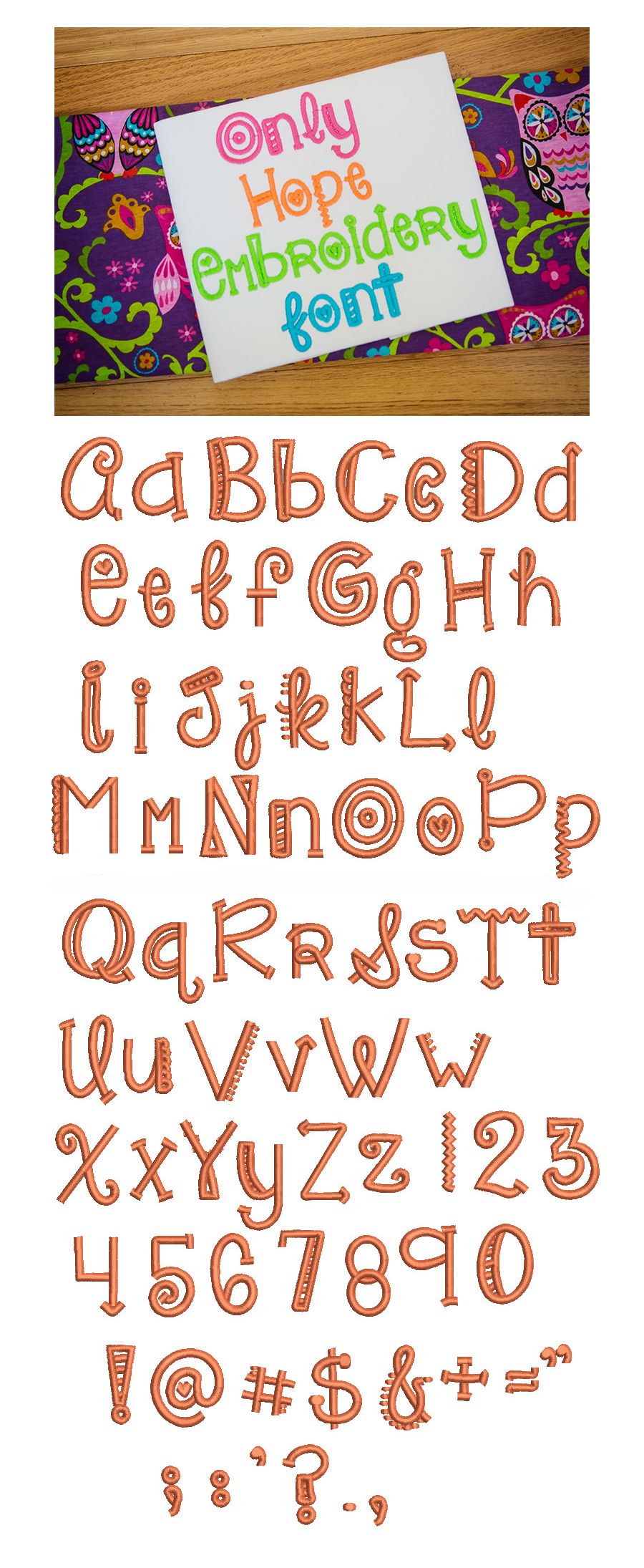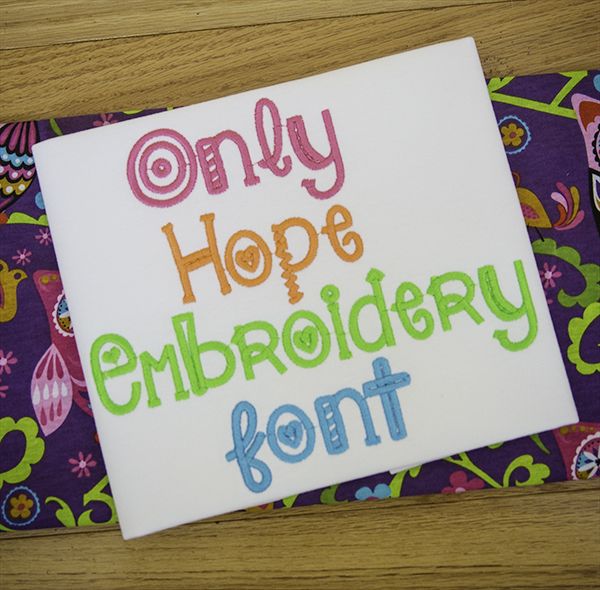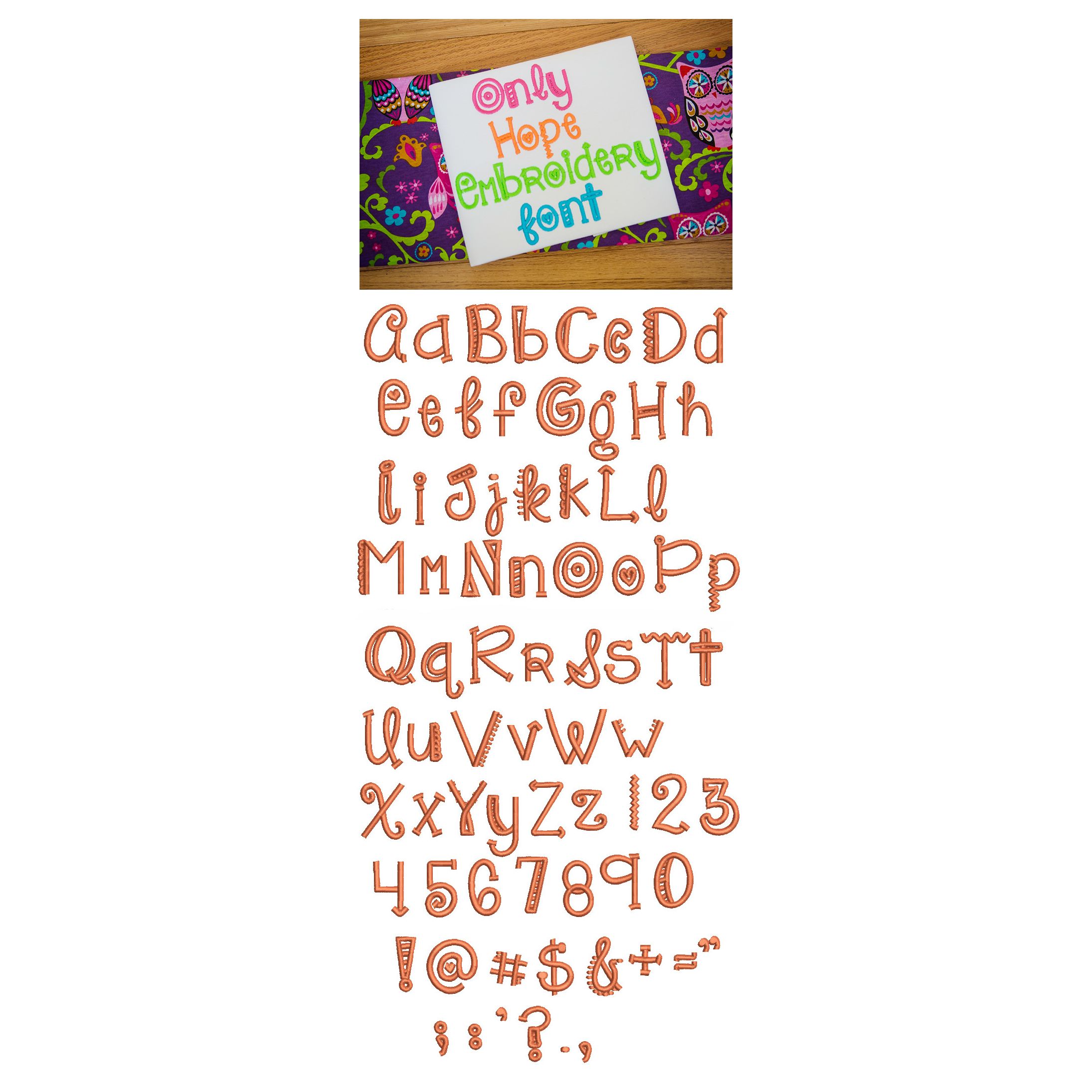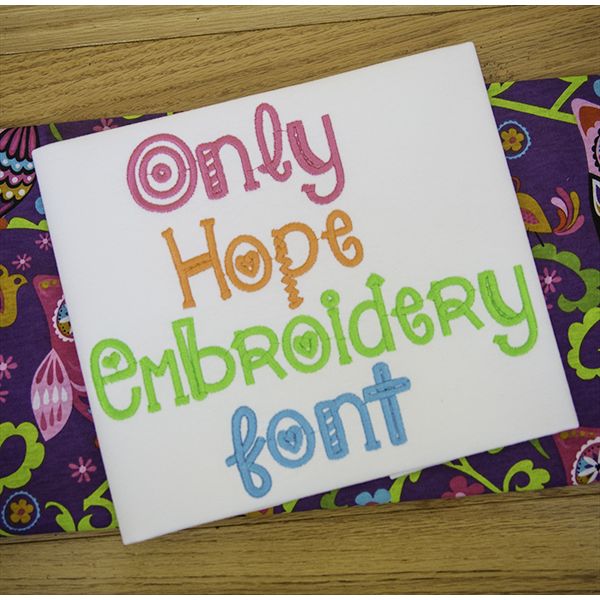
Only Hope Satin Stitch Embroidery Font
Here is a super funa nd whimsical doodle style font!  All of our font alphabets are 100% manually digitized to bring you maximum stitch quality.